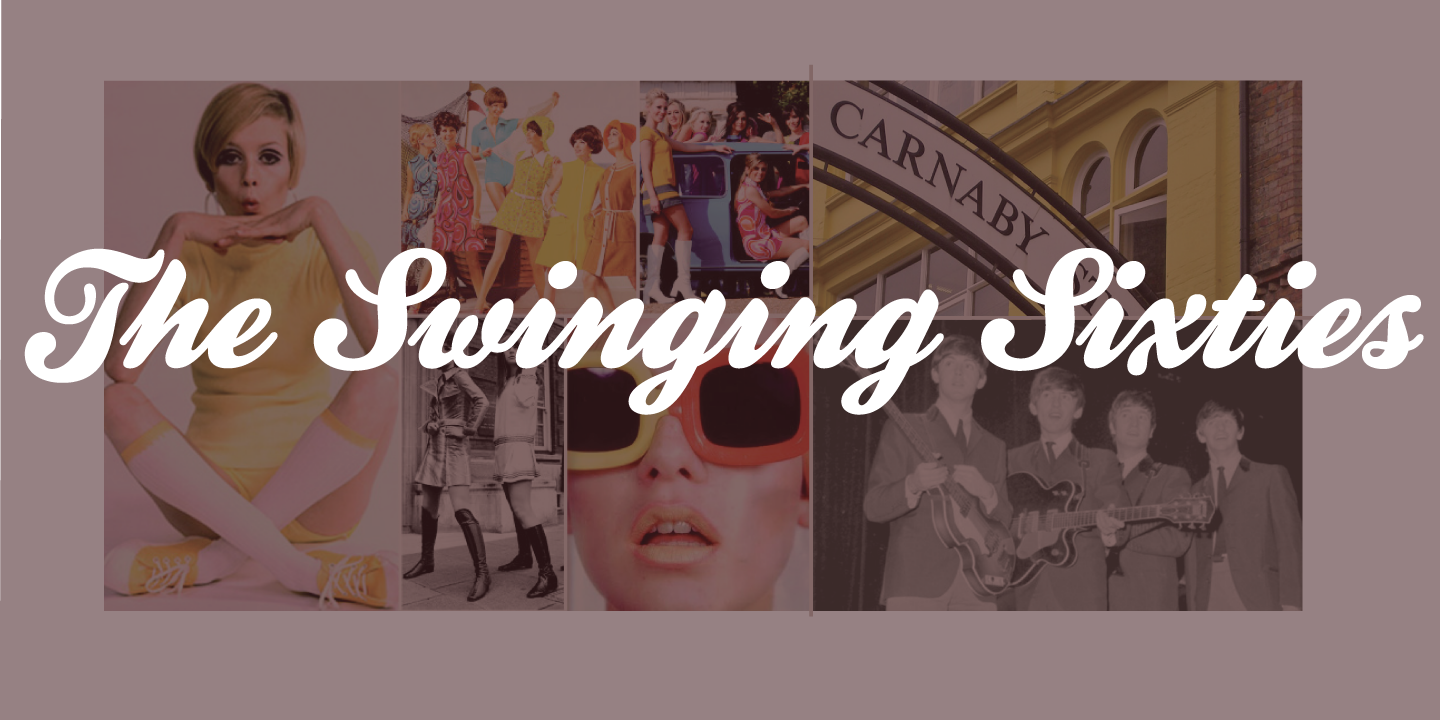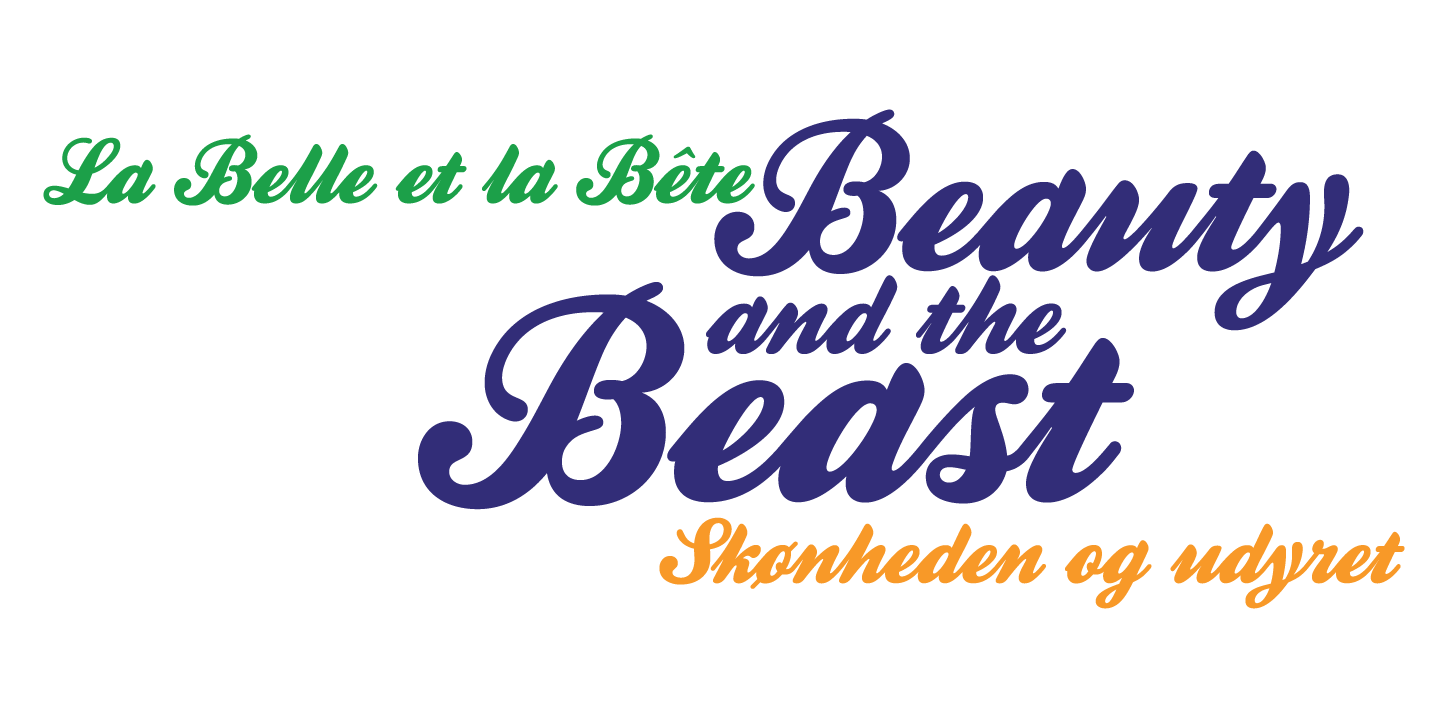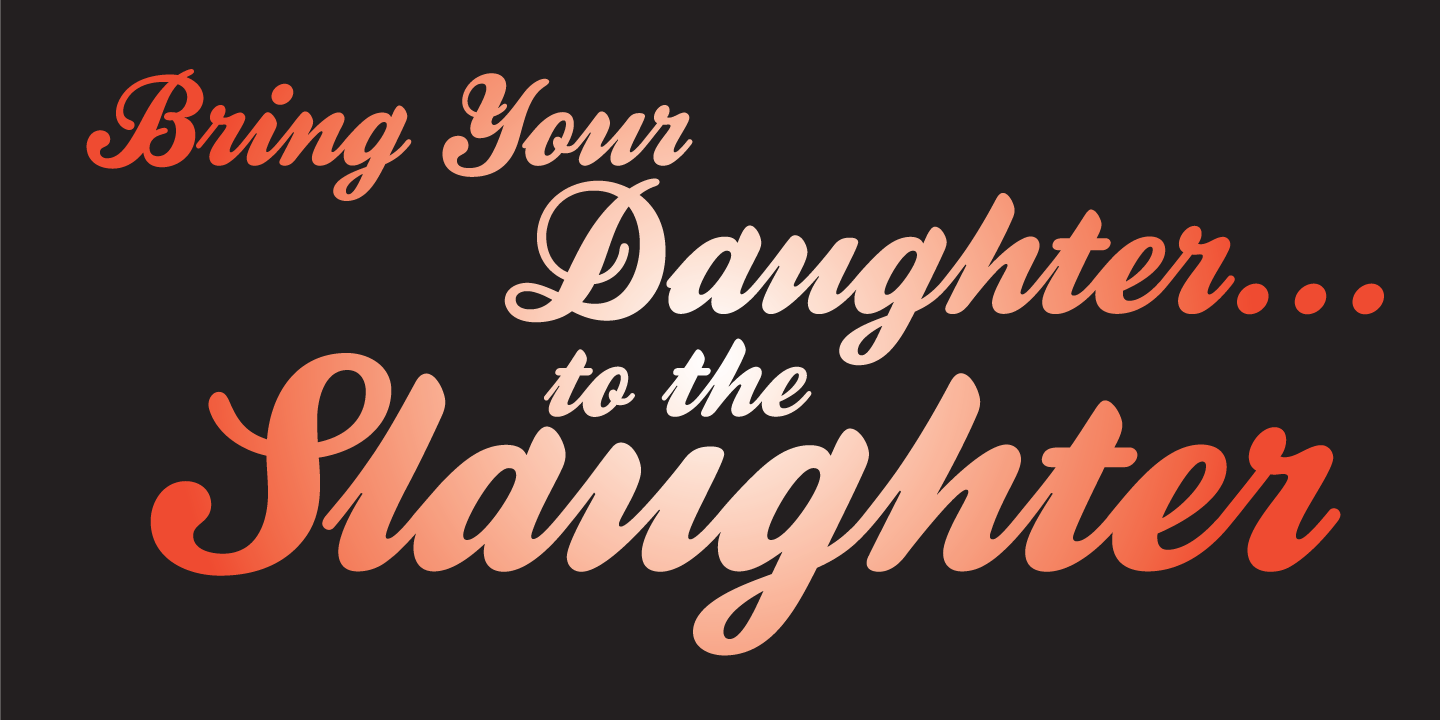
Introduction to Kestrel Script Font Font
Fonts play a crucial role in design, and the Kestrel Script Font font is a typeface that brings both character and versatility to any project. Whether you’re working on a branding project, a website, or a print design, the Kestrel Script Font font offers a unique style that can elevate your work.
Originally designed in 1985 and released by Letraset for dry transfer Lettering, Kestrel has, until now, never been digitized.
The face now has been completely re-drawn and digitized for all formats It is a heavy formal script similar in form to Commercial Script.
Key Features of Kestrel Script Font Font
Why Choose Kestrel Script Font Font?
The Kestrel Script Font font is more than just a typeface – it’s a design tool that helps you communicate your message with style and clarity. Its unique character set and versatile design make it suitable for a wide range of applications, from elegant invitations to bold headlines.
With its carefully crafted letterforms and balanced proportions, the Kestrel Script Font font ensures readability and visual appeal across all mediums.
What makes Kestrel Script Font font special?
The Kestrel Script Font font stands out with its unique design, exceptional readability, and versatility across various design applications.